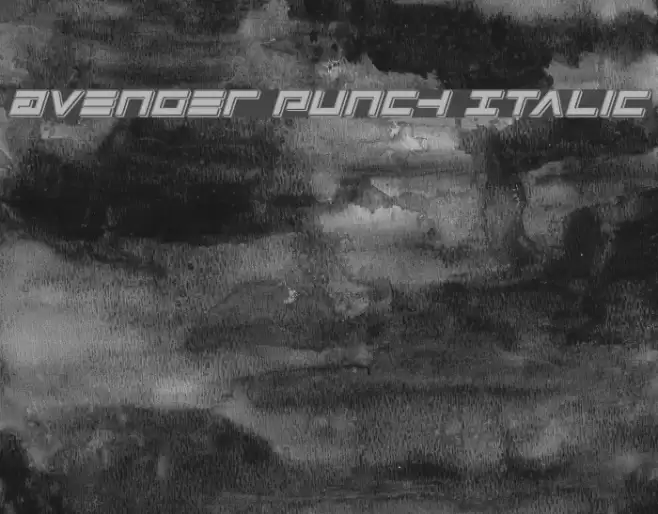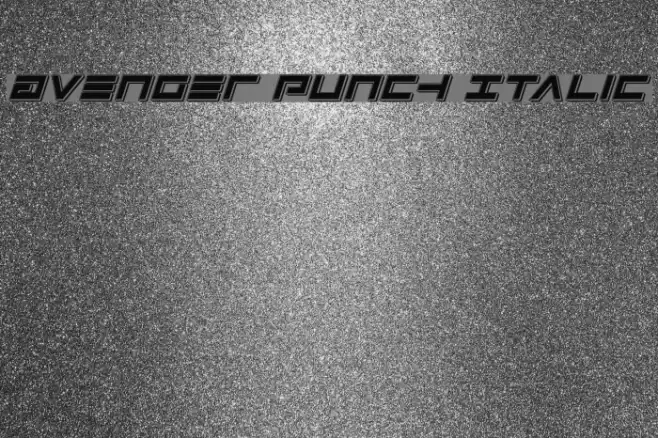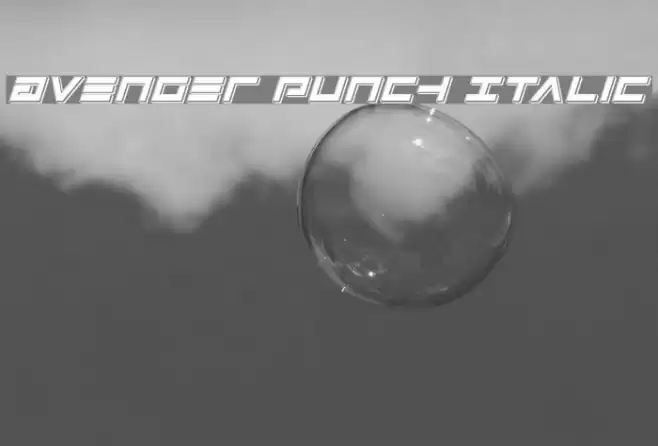
Avenger Punch Italic Font
Avenger Punch Italic Description
This font features a bold and dynamic design with a futuristic flair. The characters are outlined with a thick, black border that enhances their visibility and impact. Each letter and number is crafted with sharp angles and geometric shapes, giving it a modern and edgy appearance. The italic slant adds a sense of motion and speed, making it ideal for projects that require a sense of urgency or forward-thinking. The font maintains a consistent weight throughout, ensuring readability while still offering a unique style. The spacing between characters is tight, which contributes to its compact and cohesive look.
A bold, futuristic italic font with sharp angles and a dynamic style from Uncategorized fonts.
- Proposed Projects: Ideal for sci-fi themed designs, video game titles, tech branding, and dynamic posters.
- Character Spacing: Tight
- Overall Style: Futuristic